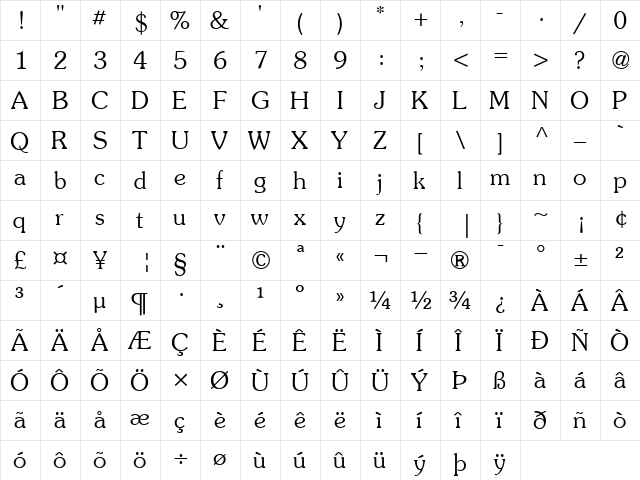
ITCSouvenir-Light Light
Design Context for ITCSouvenir-Light Typeface
ITCSouvenir-Light takes a measured approach to typography — its balanced proportions and neutral character make it a reliable workhorse for both digital and print work. Its slender proportions lend an understated elegance to any composition.